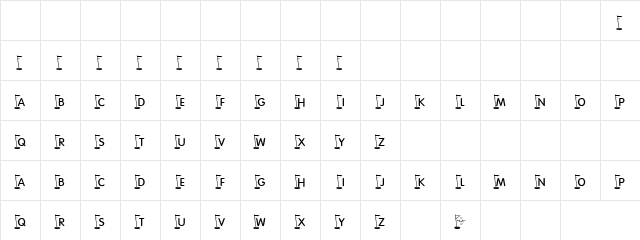
Gulf Regular
Design Context for Gulf Typeface
Gulf takes a measured approach to typography — its balanced proportions and neutral character make it a reliable workhorse for both digital and print work.